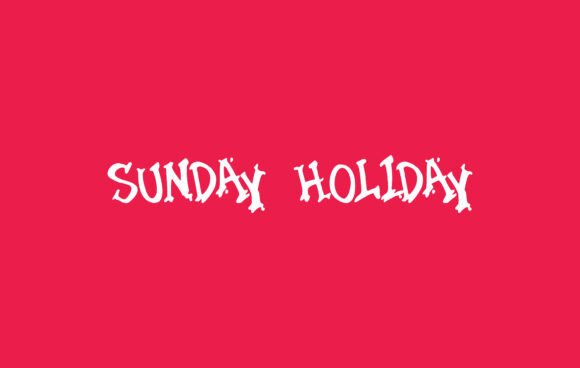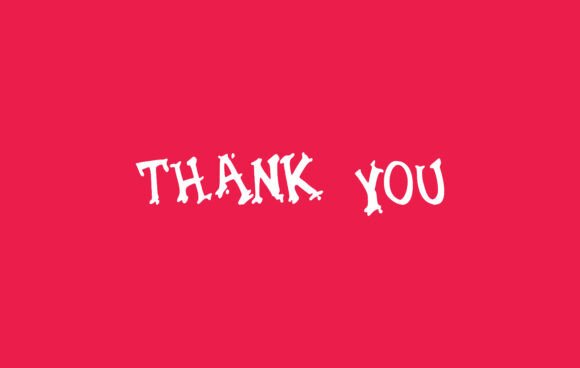
Introduction to Emmanuel Font
Emmanuel font is an authentic handwritten font with a romantic touch.
Key Features of Emmanuel Font
Why Choose Emmanuel Font?
Emmanuel Font offers exceptional quality and versatility, making it a valuable addition to your design toolkit. Whether you’re creating for personal projects or commercial use, Emmanuel Font delivers professional results.